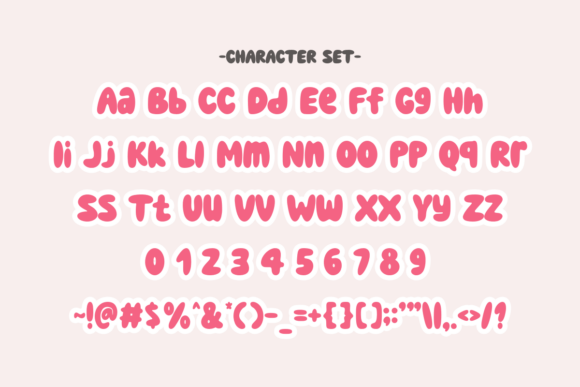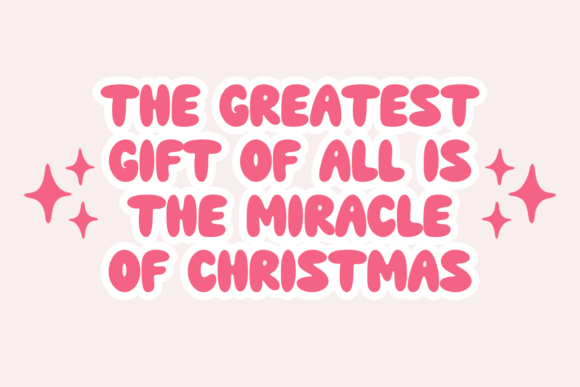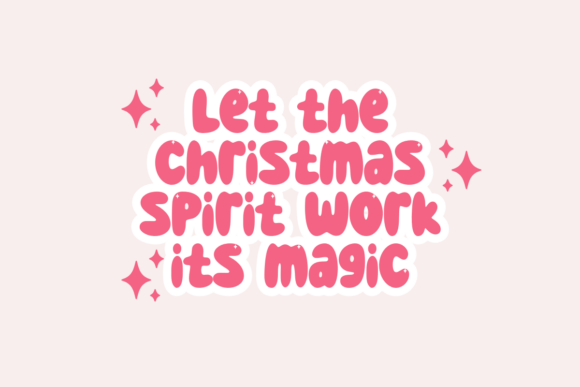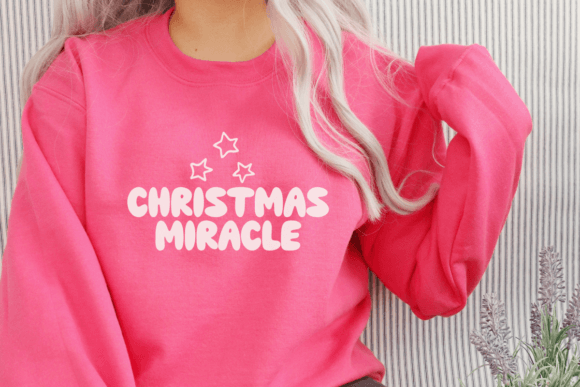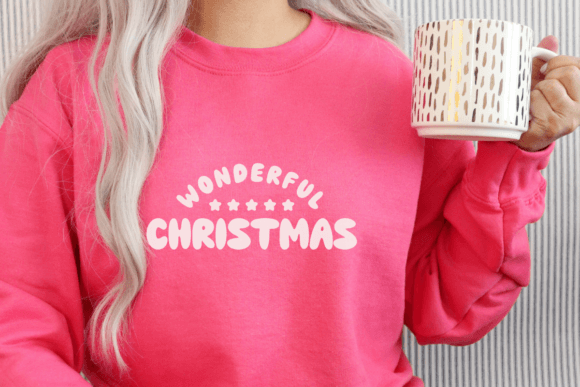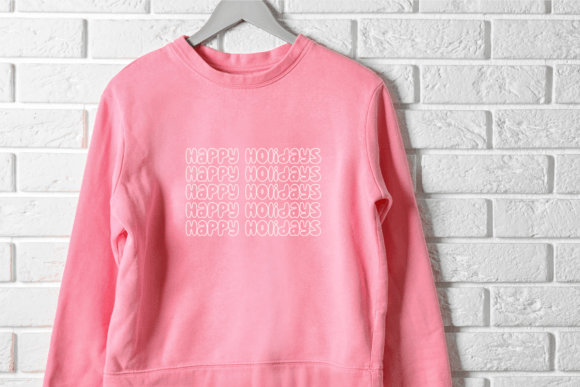
Introduction to Christmas Miracle Font
Christmas Miracle Font is a cheerful and playful bubble-style typeface that captures the magic of the holiday season.
With its soft, rounded letters and festive charm, this font is perfect for Christmas cards, holiday crafts, social media posts, and seasonal branding Bring joy and warmth to your designs with this adorable font.
Key Features of Christmas Miracle Font
Why Choose Christmas Miracle Font?